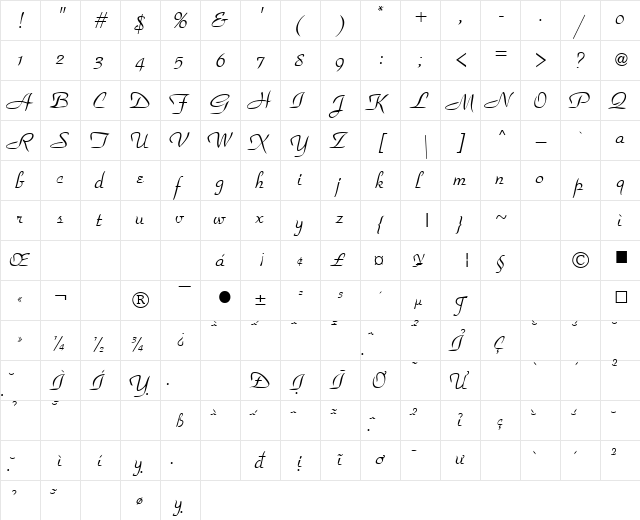
VNI-Park Normal
Design Context for VNI-Park Typeface
VNI-Park is a composed and adaptable typeface that performs quietly and consistently across a wide range of design contexts.